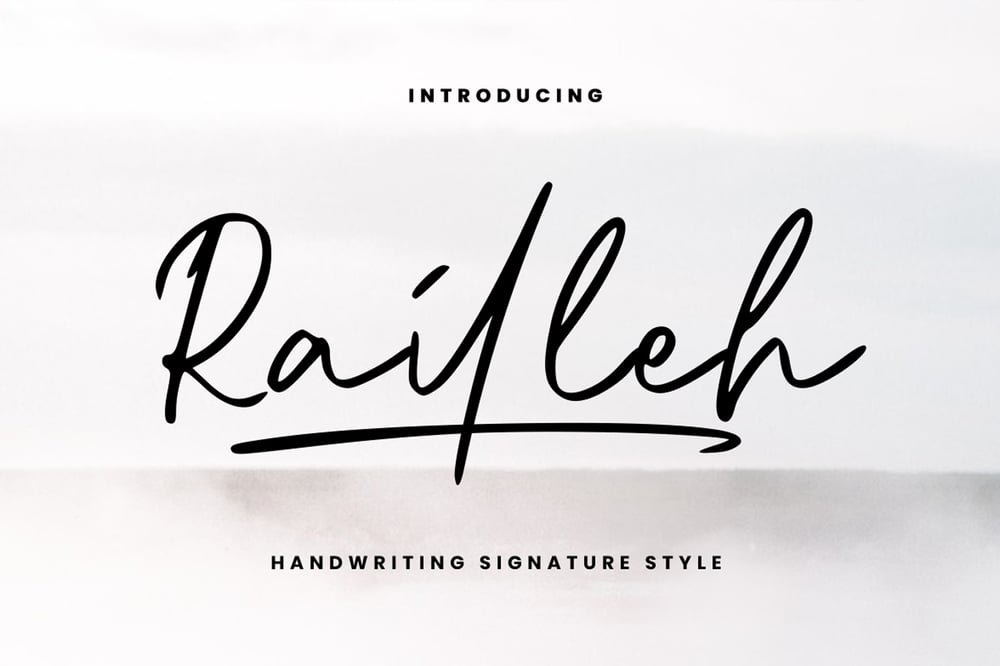
Reilleh Font Family was designed by Sur Anto and published by Kangfont Studio. Reilleh contains 1 styles and family package options. Raileh is a handwriting font that exudes elegance and personality. Crafted with smooth strokes resembling a signature, this font is perfect for creative projects such as logos, invitations, branding, and packaging design.Raileh’s distinctive feature lies in its flowing curves that combine sophistication with a modern touch, making it an excellent choice for conveying exclusivity and artistry. With full character support and seamless ligatures, Raileh ensures a professional and captivating result.